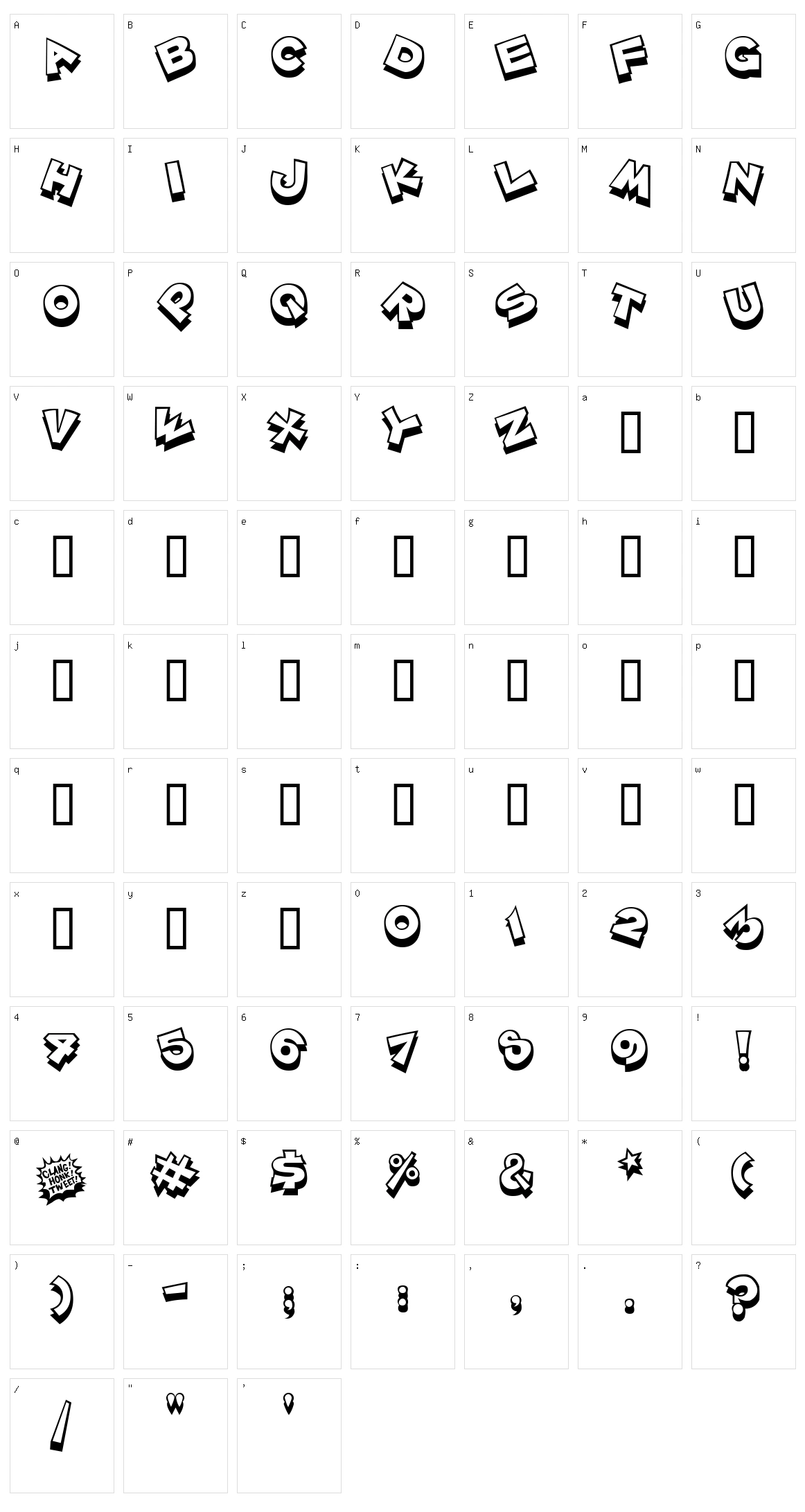
About Zoink Fat
Zoink Fat is a font I did years ago, based on an old Mac font called GilbertShelton. When I first started doing design (many years ago when the Mac Plus was the top of the line), there was a font available called GilbertShelton, but it was only available in bitmap format. Basically, I did my best to create an outline font from the largest available screen font.
The name is a nod to the fight scenes on the old Batman TV series (and to Shaggy on Scooby Doo...).